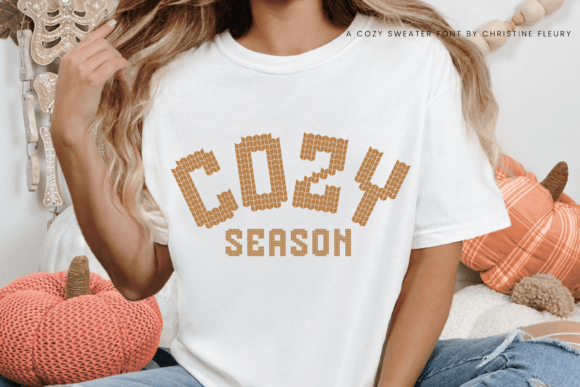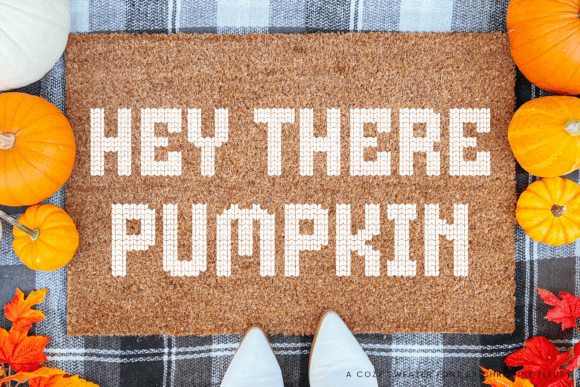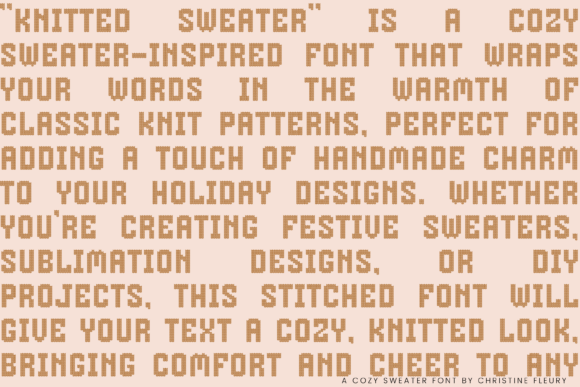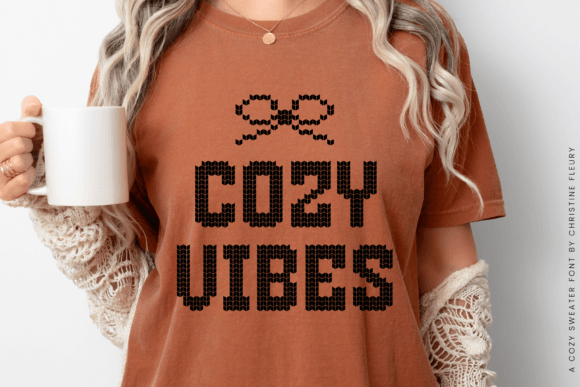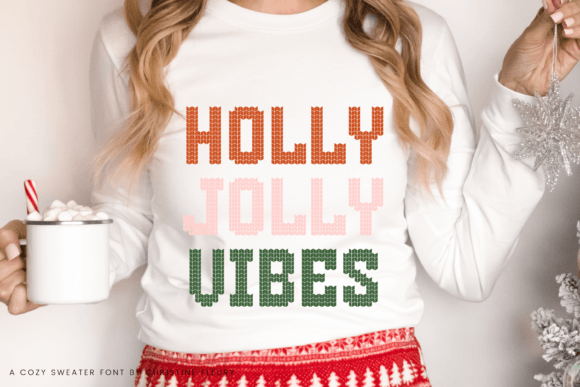
Introduction to Knitted Sweater Font
As a designer, there’s nothing quite like the feeling of wrapping your words in a cozy, knitted stitch. It’s a moment of pure creative bliss, where the perfect combination of texture and typography comes together to transport your audience to a world of warmth and comfort. And that’s exactly what the Knitted Sweater Font is all about – bringing a touch of handmade charm to your designs.
With the Knitted Sweater Font, you can add a unique, high-quality element to your creative projects, from logos and branding to crafts and prints. Whether you’re looking to create a custom card, a set of ornaments, or even a sublimation design, this font is the perfect design resource to get you started. And the best part? It’s available as a free download, complete with a transparent background, so you can easily integrate it into your designs.
Key Features of Knitted Sweater Font
- Unique, hand-drawn design inspired by knitted sweaters, perfect for creative projects and design resources.
- Knitted Sweater Font is a high-quality, professional-grade font suitable for a wide range of creative projects, from branding and marketing materials to editorial and publishing designs.
Honest Review: Knitted Sweater Font
I recently came across the Knitted Sweater Font while searching for design resources for a creative project. The font caught my eye with its unique, hand-knit-inspired design. The transparent background is a great touch, allowing for seamless integration into various design elements.
Here’s what works well about the Knitted Sweater Font:
- ✨ Unique and creative design
- ✨ High-quality resolution
- ✨ Suitable for various design projects, from digital to print
- ⚠️ Limited character set, which may be a concern for more extensive projects
- ⚠️ May require additional styling to achieve desired appearance
Overall, I’m impressed with the Knitted Sweater Font. While it may not be suitable for all projects, its unique design and high-quality resolution make it a valuable addition to any design resource library. If you’re looking for a creative way to add some texture and interest to your designs, the Knitted Sweater Font is definitely worth checking out.
The Knitted Sweater Font is perfect for creative projects, such as invitations, posters, and social media graphics. You can also use it for branding and marketing materials, like business cards and logos. The free download makes it an excellent design resource for anyone looking to add a unique touch to their work.